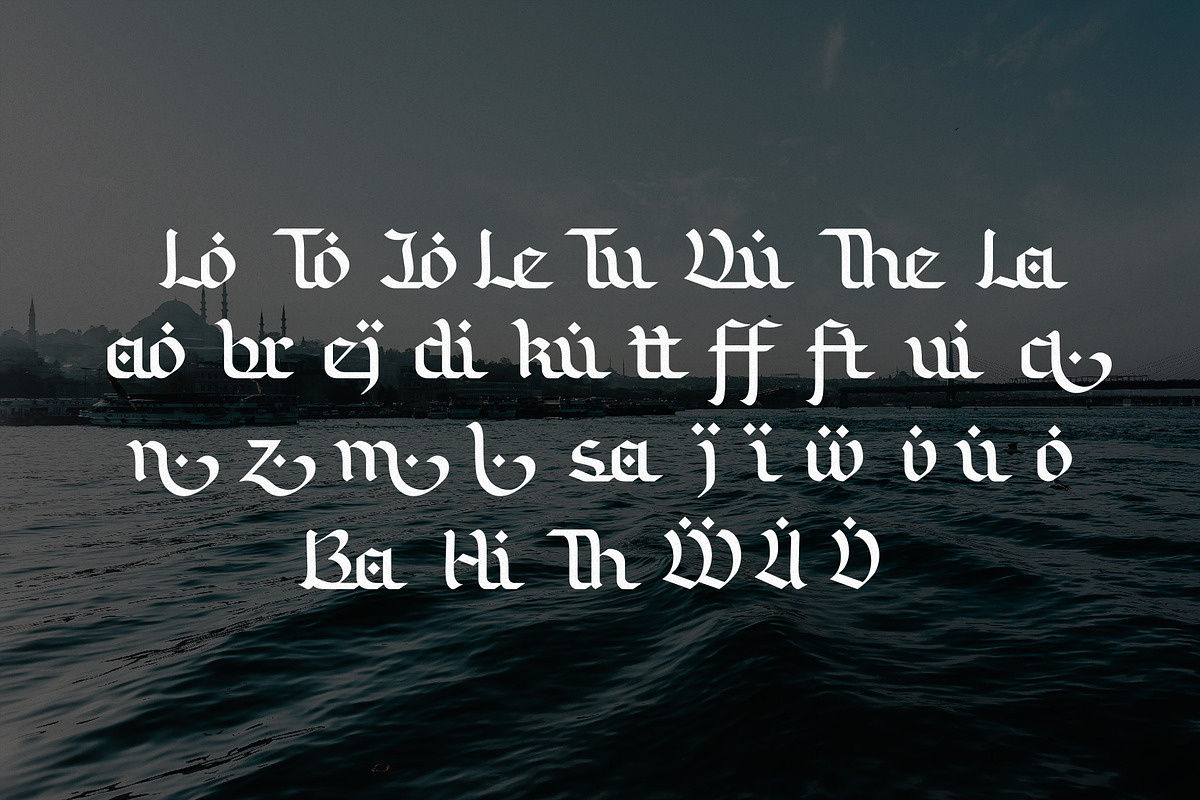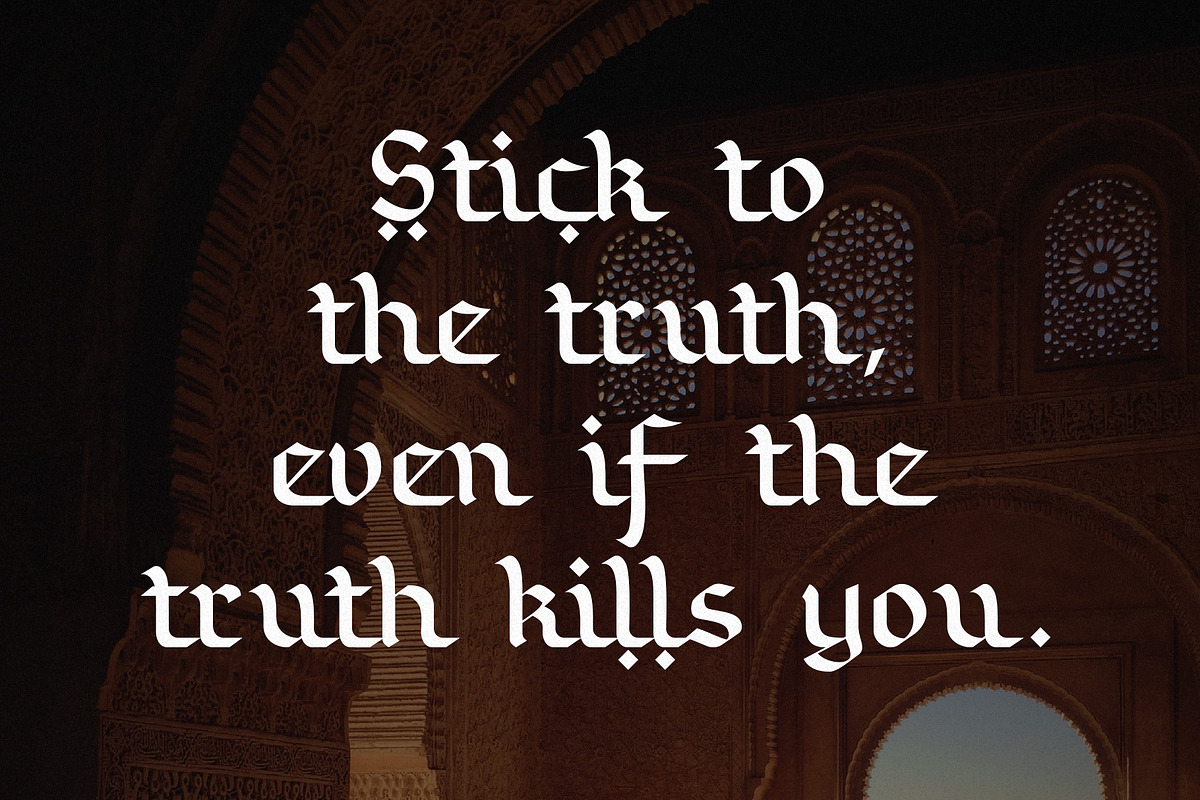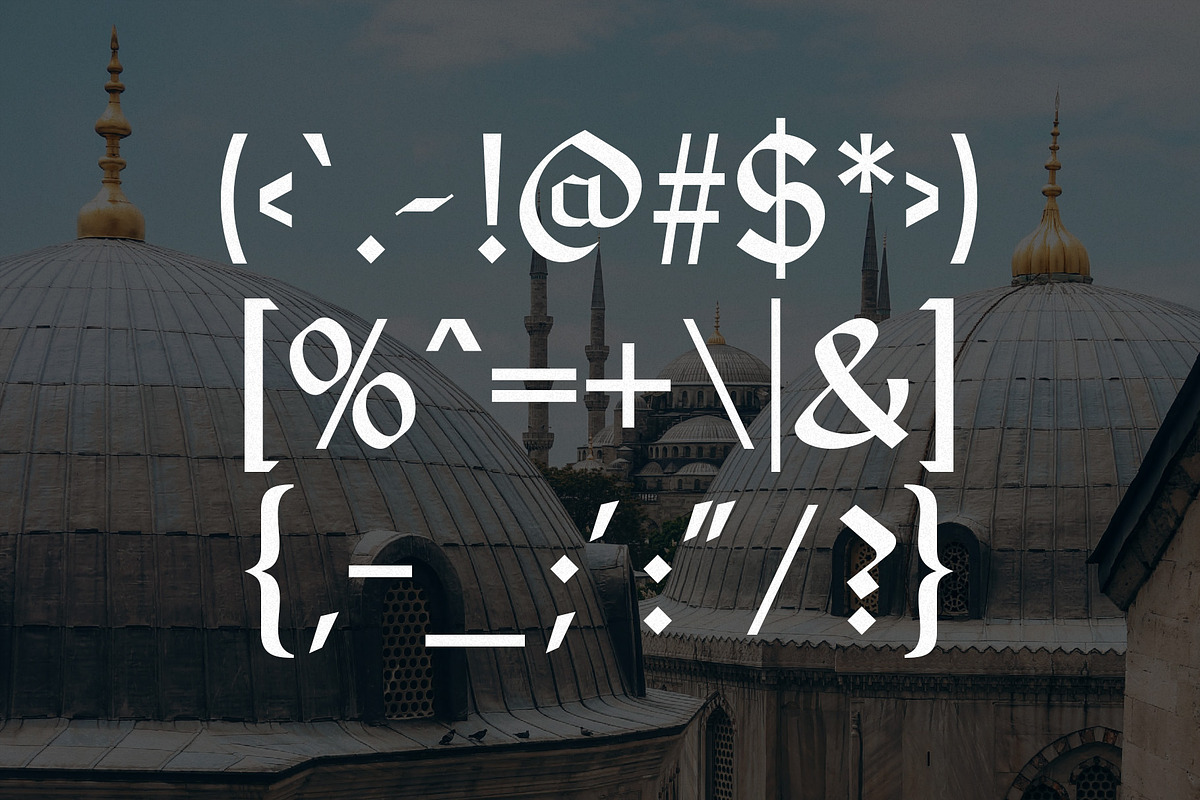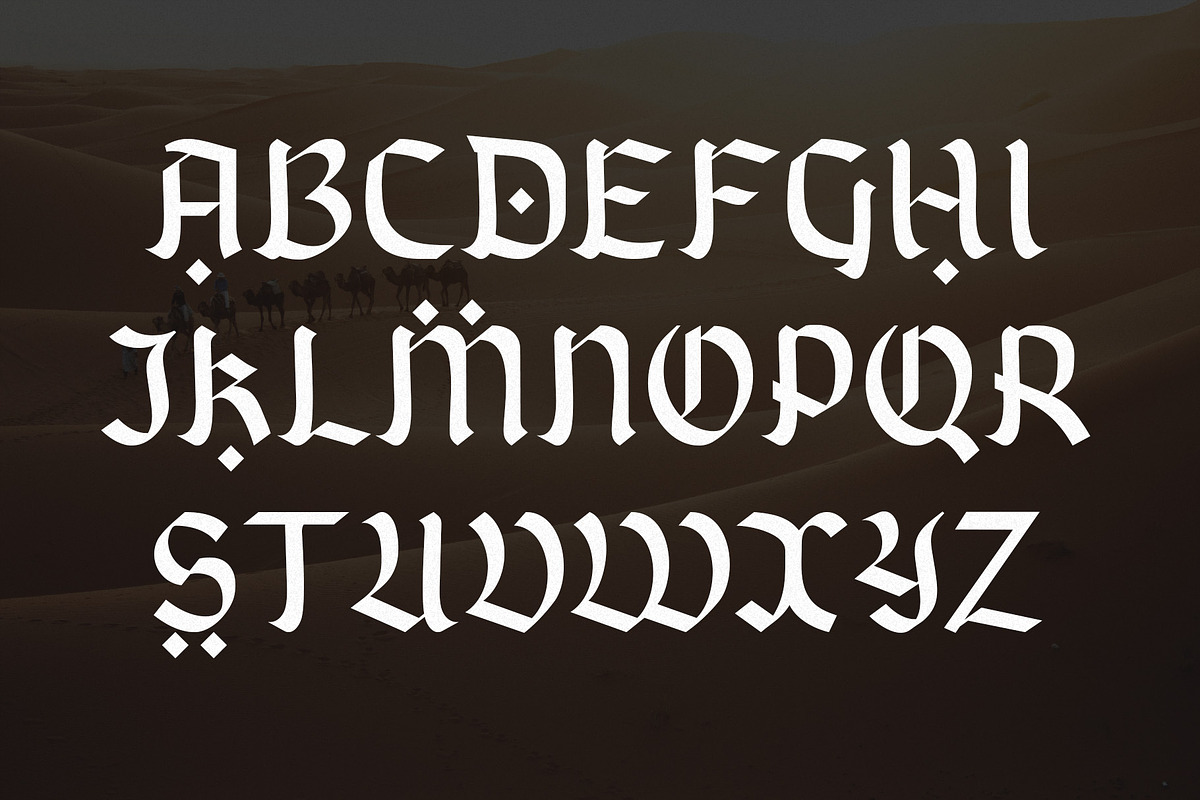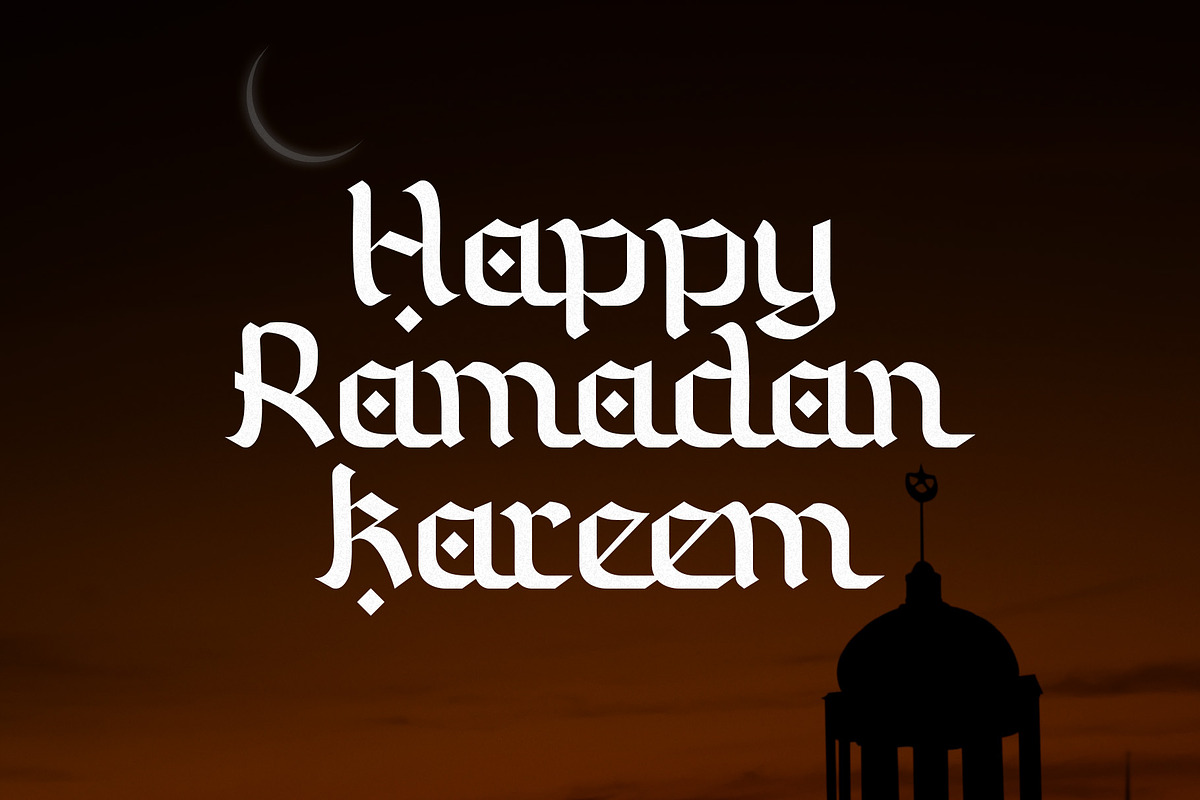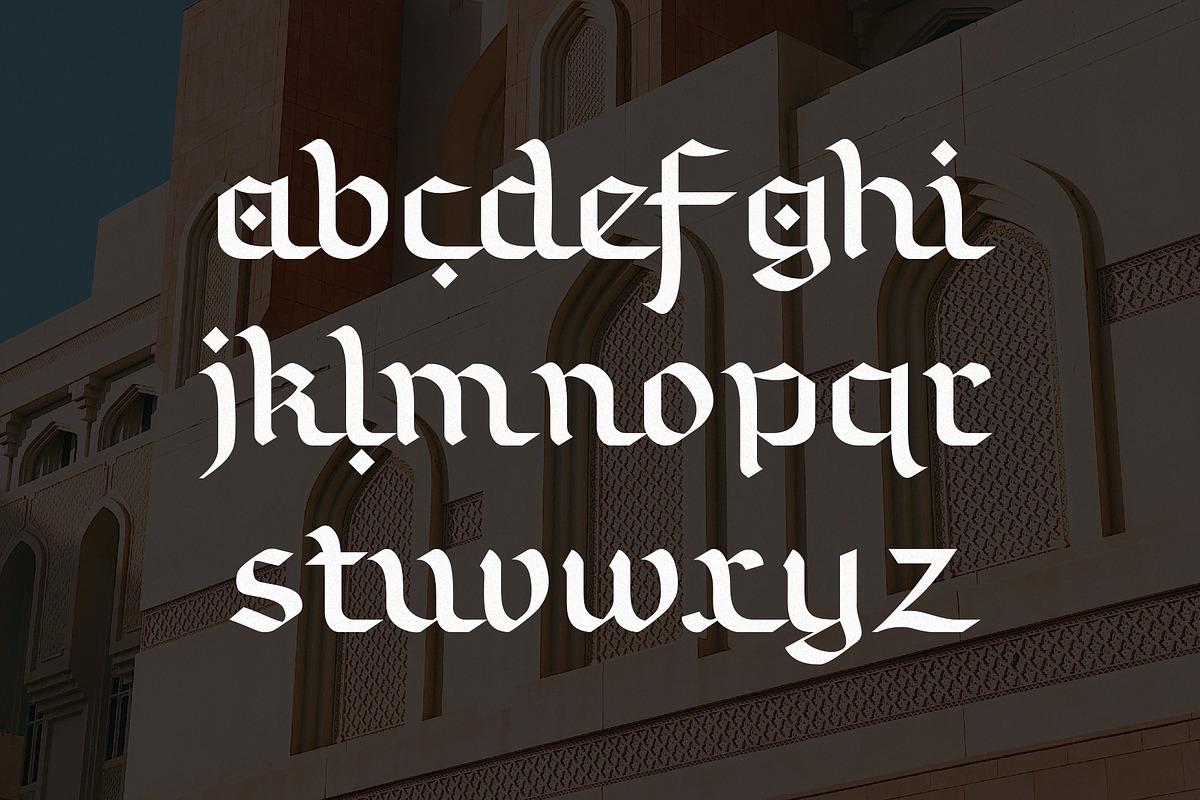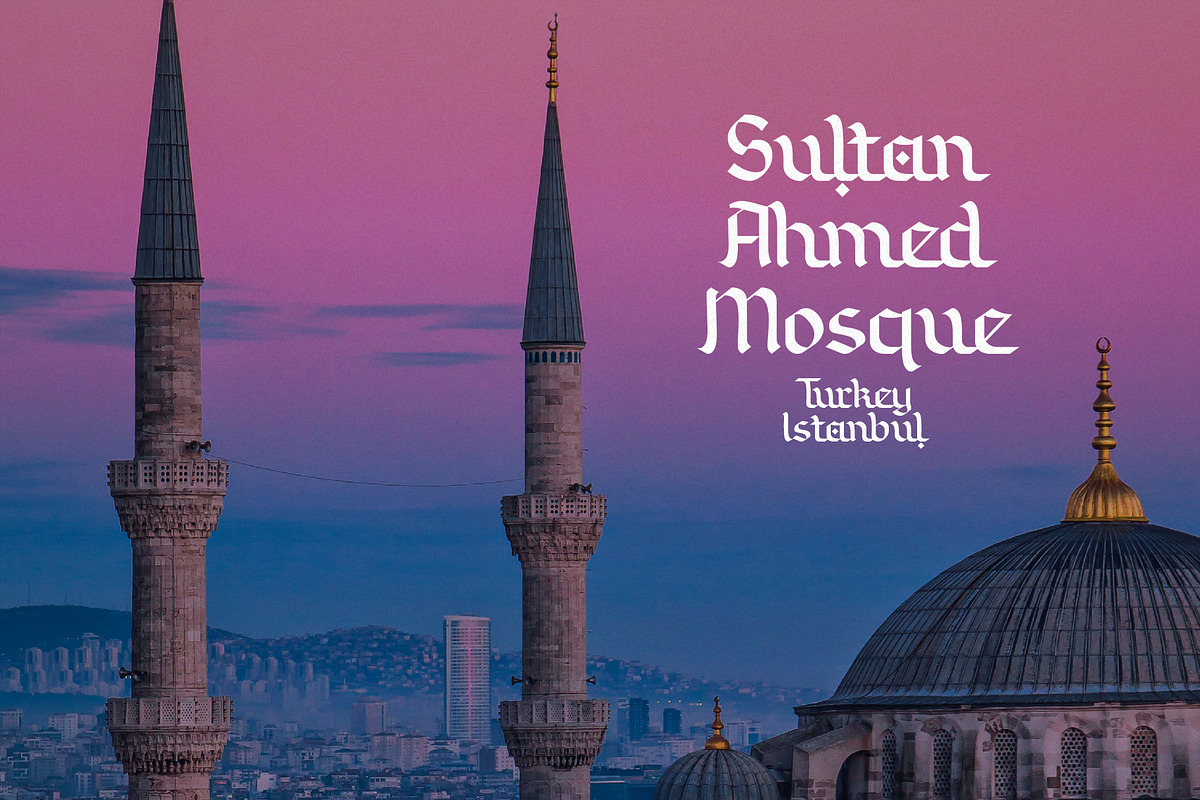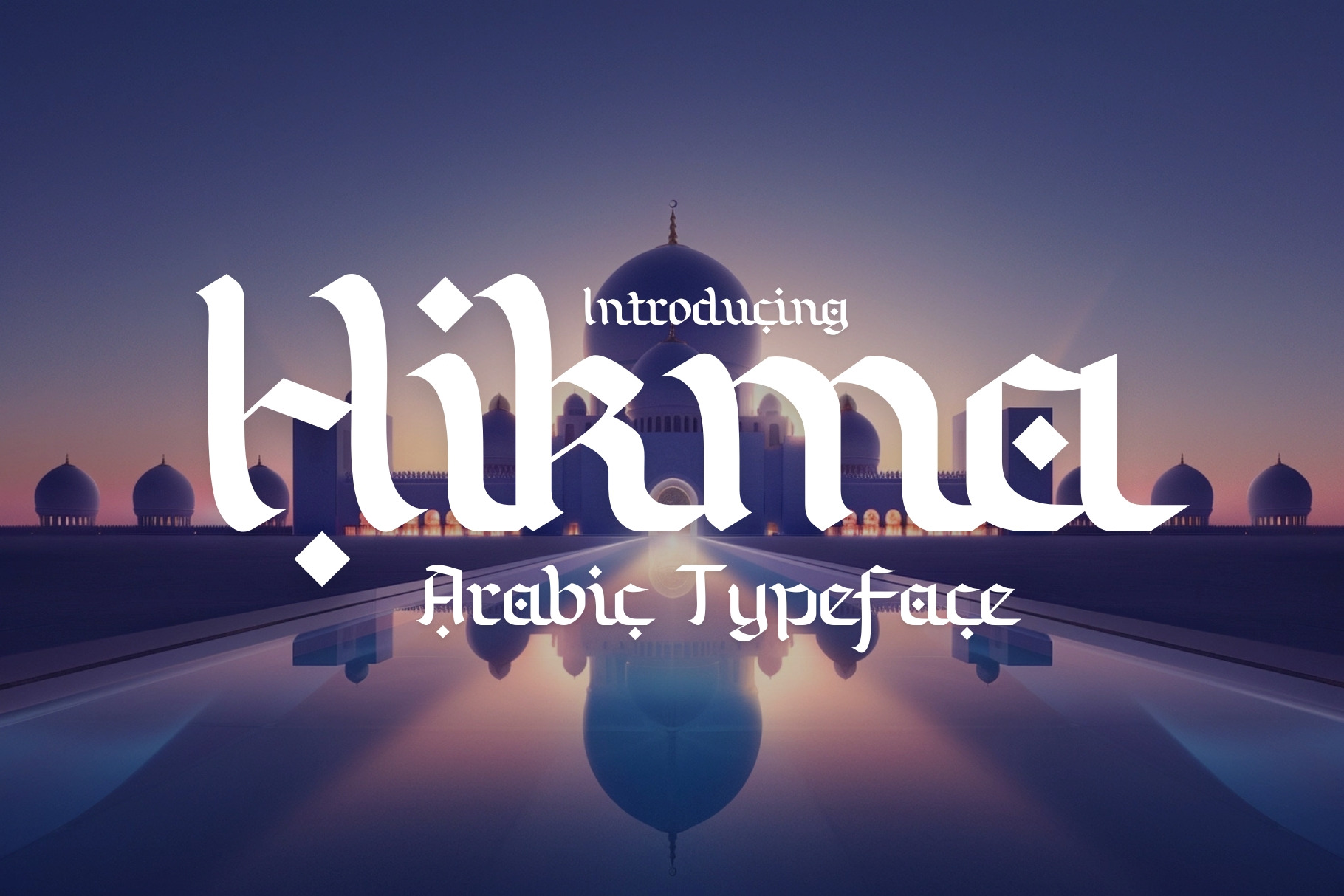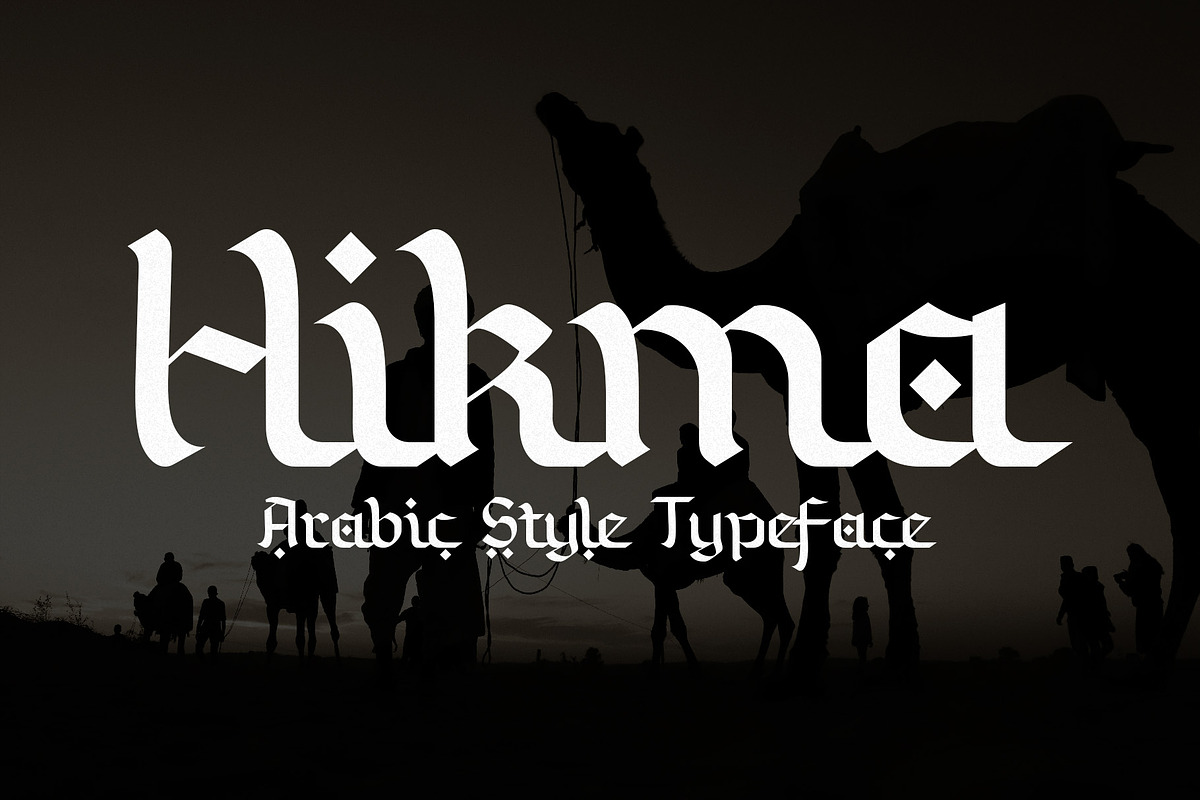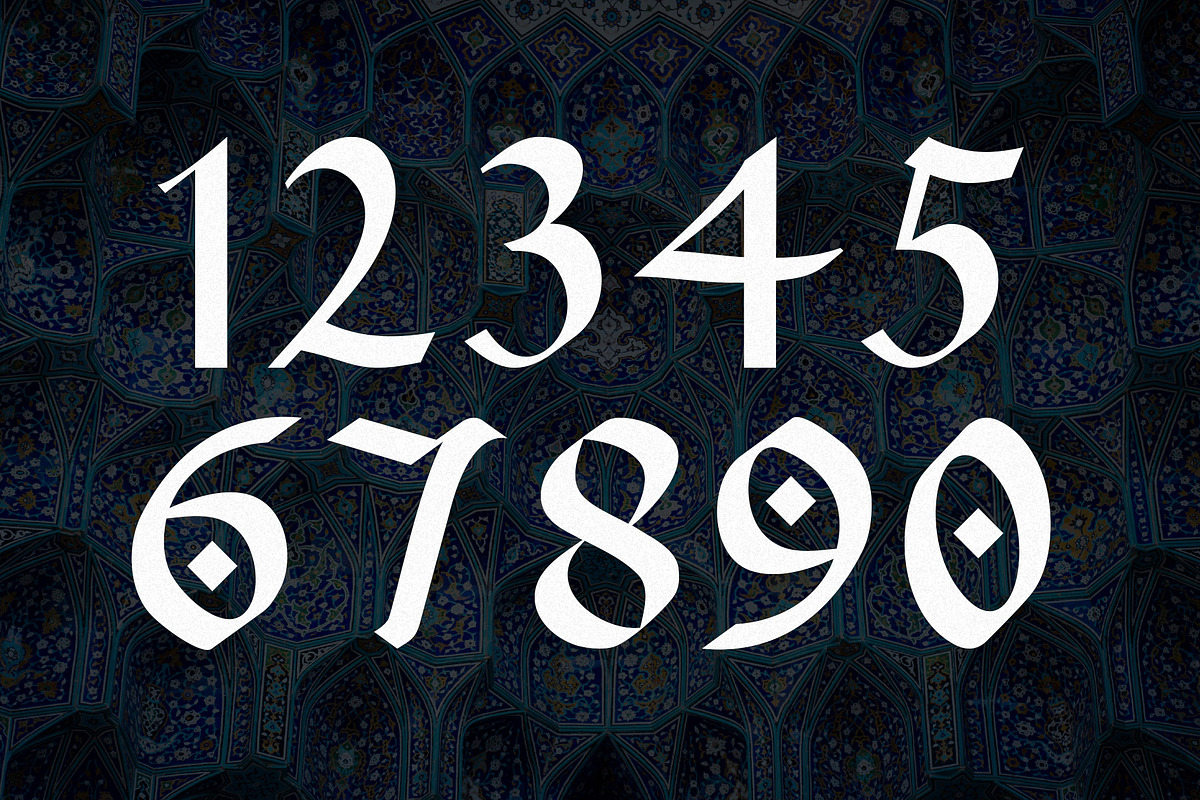
Hikma - Arabic Style Typeface
Hikma is a unique Arabic style typeface with 35 beautiful ligatures. Inspired by gorgeous Arabian calligraphy, this font is suitable for any Islamic or Middle East content. Hikma is perfect for branding, photography, product designs, stationery, wedding designs, invitations, watermarks, advertisements, labels, product packaging, special events and much more.